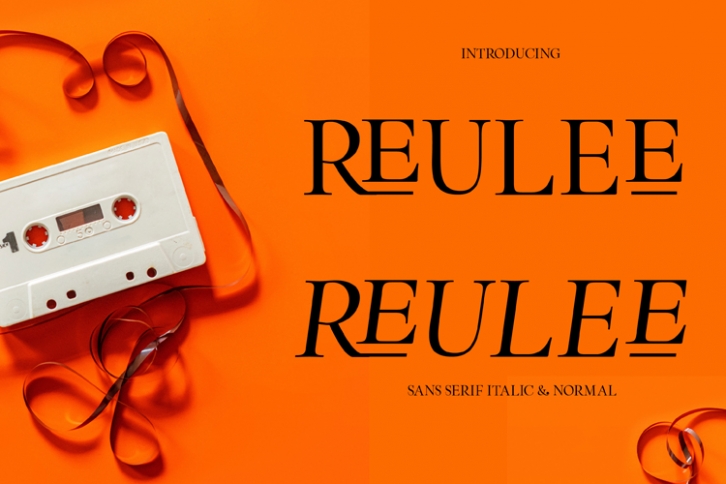
Reulee is a gorgeous font that was realeased on January 22, 2020. The font can be used in many style contexts and design environments. Perfect for invitations, magazines, websites, logos, and more! It was designed by Edcreative and the file size is 19.98 MB. Thanks for checking out this font!